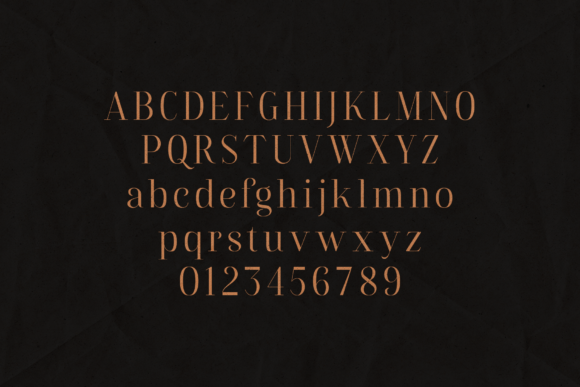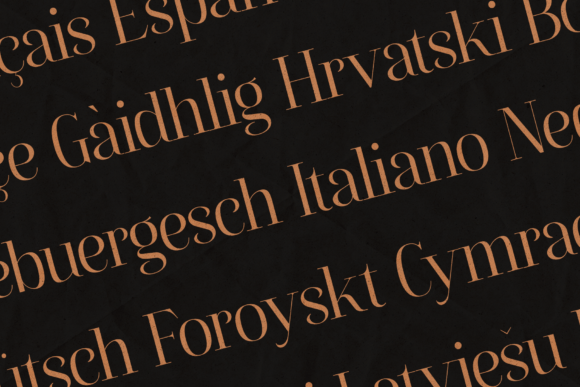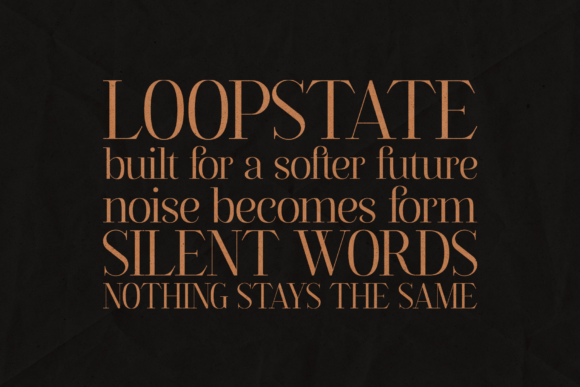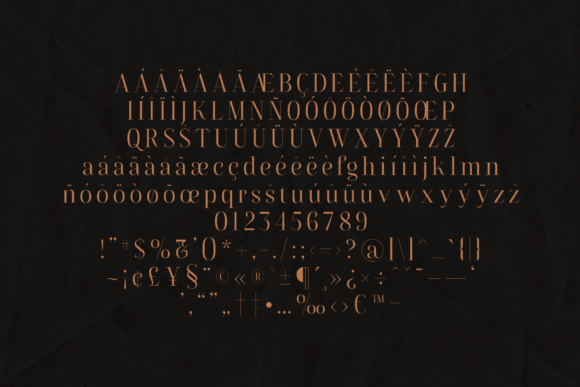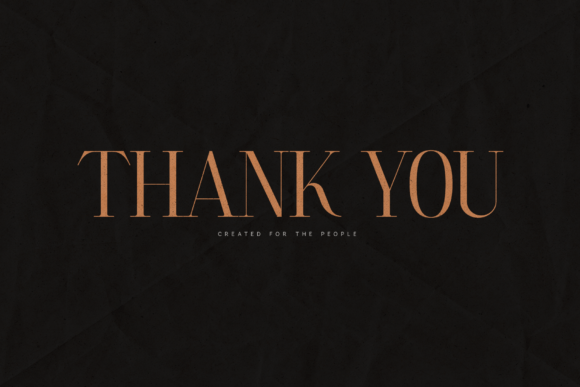
Introducing Flowrite Font: Elevate Your Design with Refined Modern Serif
In the world of typography, a well-crafted font can make all the difference in elevating a design from ordinary to extraordinary. For designers and crafters seeking a sophisticated and elegant touch, Flowrite Font is an exceptional choice. This refined modern serif typeface is specifically designed for elevated branding and editorial design, offering a perfect blend of luxury and versatility.
The Essence of Flowrite Font
Flowrite Font embodies the essence of modern luxury, characterized by its graceful contrast, sharp detailing, and timeless proportions. The typeface boasts a balanced structure, making it suitable for both striking headlines and refined text compositions. Its refined serif design captures the perfect balance between sharp, delicate hairlines and bold, grounded stems, exuding an air of quiet luxury.
Perfect for Editorial Layouts and High-End Branding
Flowrite Font is perfect for designers seeking to create stunning editorial layouts and high-end branding materials. Its elegant design makes it an ideal choice for fashion magazine covers, luxury brand logos, and upscale packaging. The font’s versatility allows it to be used in a variety of design applications, from digital portfolios to wedding invitations, and everything in between.
Key Features of Flowrite Font
- Refined Modern Serif Design: Flowrite Font features a sophisticated serif design, perfect for elevated branding and editorial design.
- Graceful Contrast and Sharp Detailing: The typeface boasts a beautiful balance of contrast and sharp detailing, making it perfect for headlines and text compositions.
- Timeless Proportions: Flowrite Font’s classic proportions ensure it remains timeless and elegant, even in modern designs.
- Multilingual Support: The font offers extensive multilingual support, making it suitable for global design applications.
- Versatile and Commanding: Flowrite Font is versatile and commanding, making it perfect for a range of design applications, from fashion magazines to luxury brand logos.
Pairing Flowrite Font with Other Typefaces
Flowrite Font pairs beautifully with simple sans-serifs, creating a balanced and professional hierarchy. This makes it easy to use in a variety of design applications, from digital portfolios to editorial layouts. The font’s versatility allows it to be paired with other typefaces to create a unique and sophisticated look.
Design Applications for Flowrite Font
Flowrite Font is perfect for a range of design applications, including:
- Editorial Layouts: Use Flowrite Font to create stunning editorial layouts, including fashion magazine covers and articles.
- High-End Branding: The font is ideal for luxury brand logos, packaging, and marketing materials.
- Wedding Invitations: Add a touch of elegance to wedding invitations and stationery with Flowrite Font.
- Upscale Packaging: Use Flowrite Font to create sophisticated packaging designs for luxury brands.
- Digital Portfolios: Elevate digital portfolios with Flowrite Font, perfect for creatives and professionals.
Flowrite Font is an exceptional choice for designers and crafters seeking a refined modern serif typeface for elevated branding and editorial design. Its elegant design, versatility, and extensive multilingual support make it perfect for a range of design applications. Whether you’re crafting a sleek fashion magazine cover or a minimalist logo for a boutique brand, Flowrite Font is sure to deliver elegance without excess.